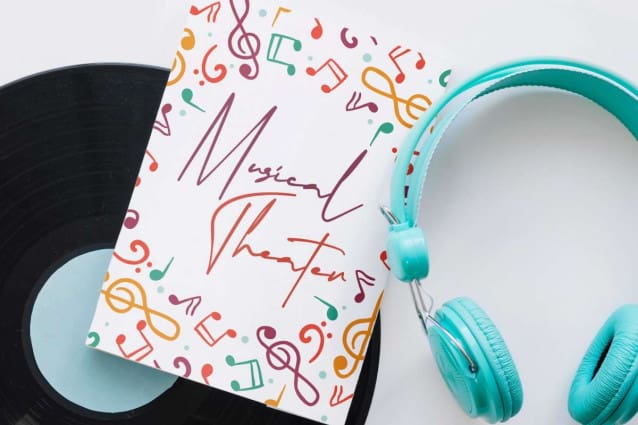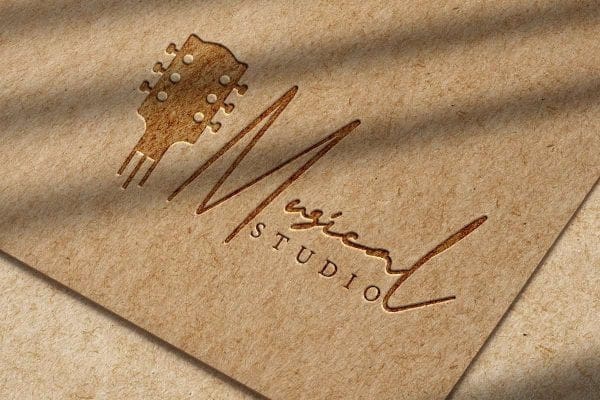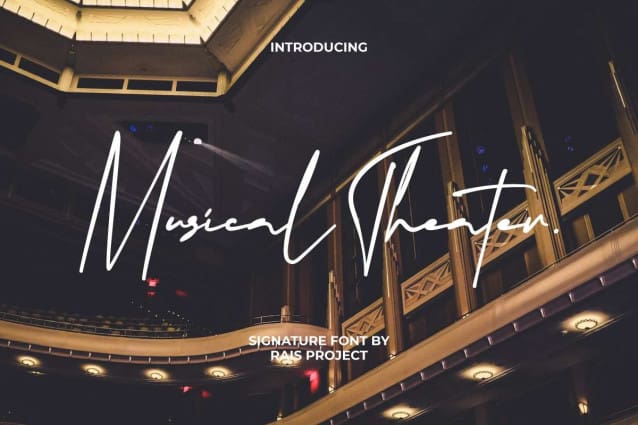
Musical Theater Font
Musical Theater Font is an authentic classy signature font. This font has light lines and still easy to read. Also all uppercase letters have long lines to emphasize each letter you make. This font will suitable for many industries, such as beauty product, event or wedding organizer, fashion, florist, homeware, jewelry, movie, music, photography, printing, publishing, writer, and more!
Musical Theater Font includes a full set of Uppercase and Lowercase Letters, Numerals, Punctuation, and Symbol. This font will give each design an exclusive look, such as brand logo, business card, catalog, invitation, label, menu, poster, product packaging, quote, title, website, etc.